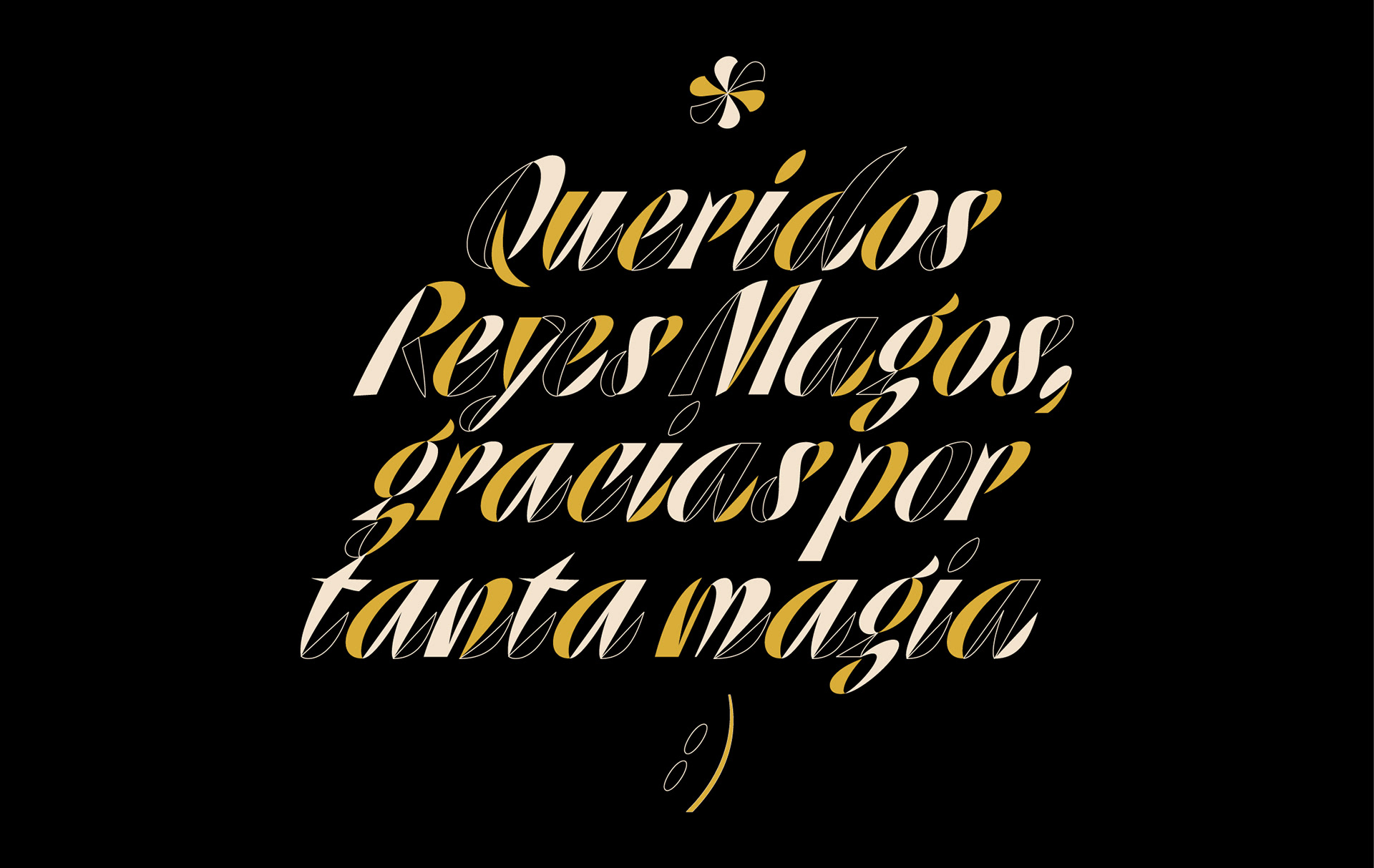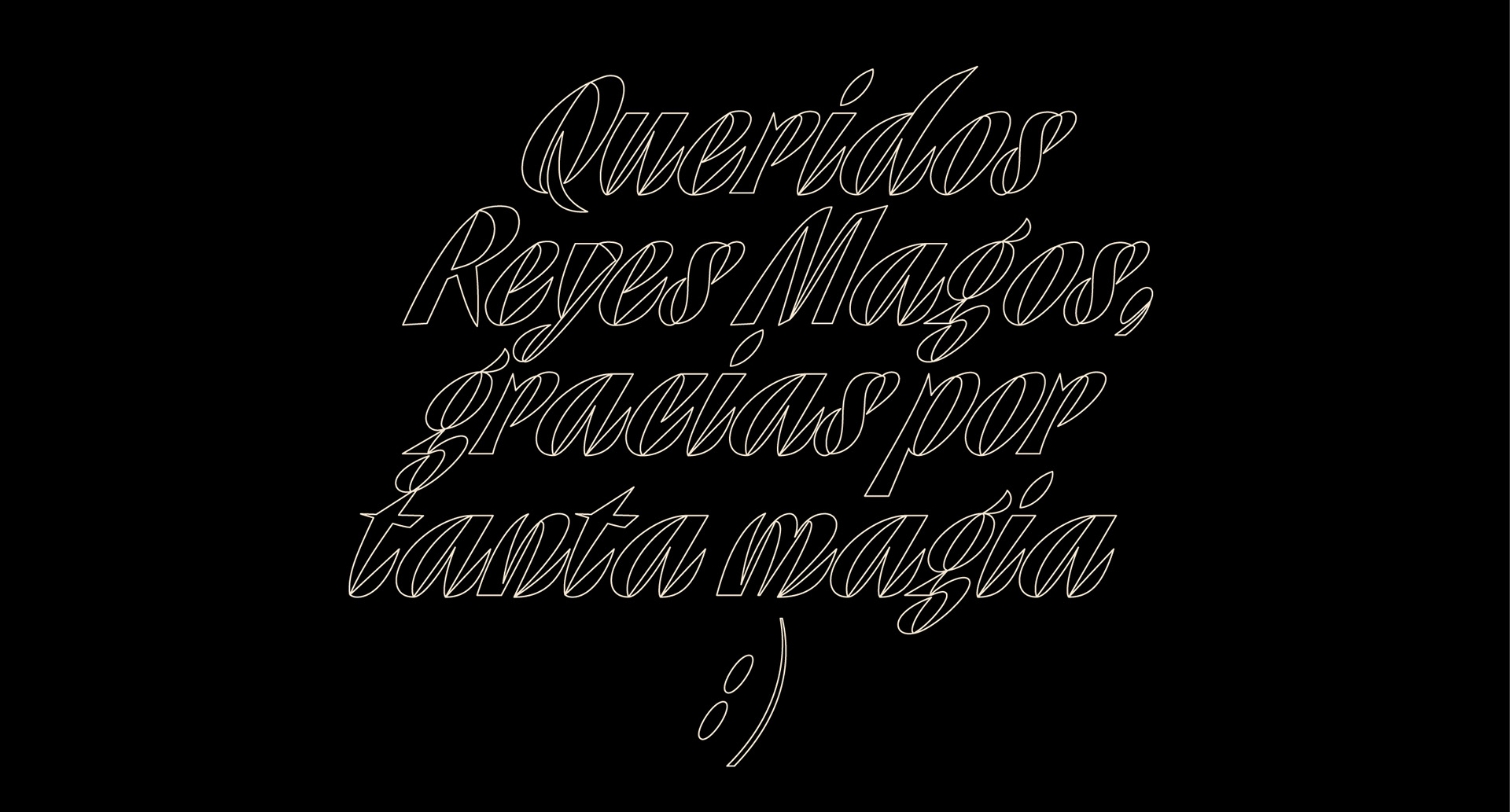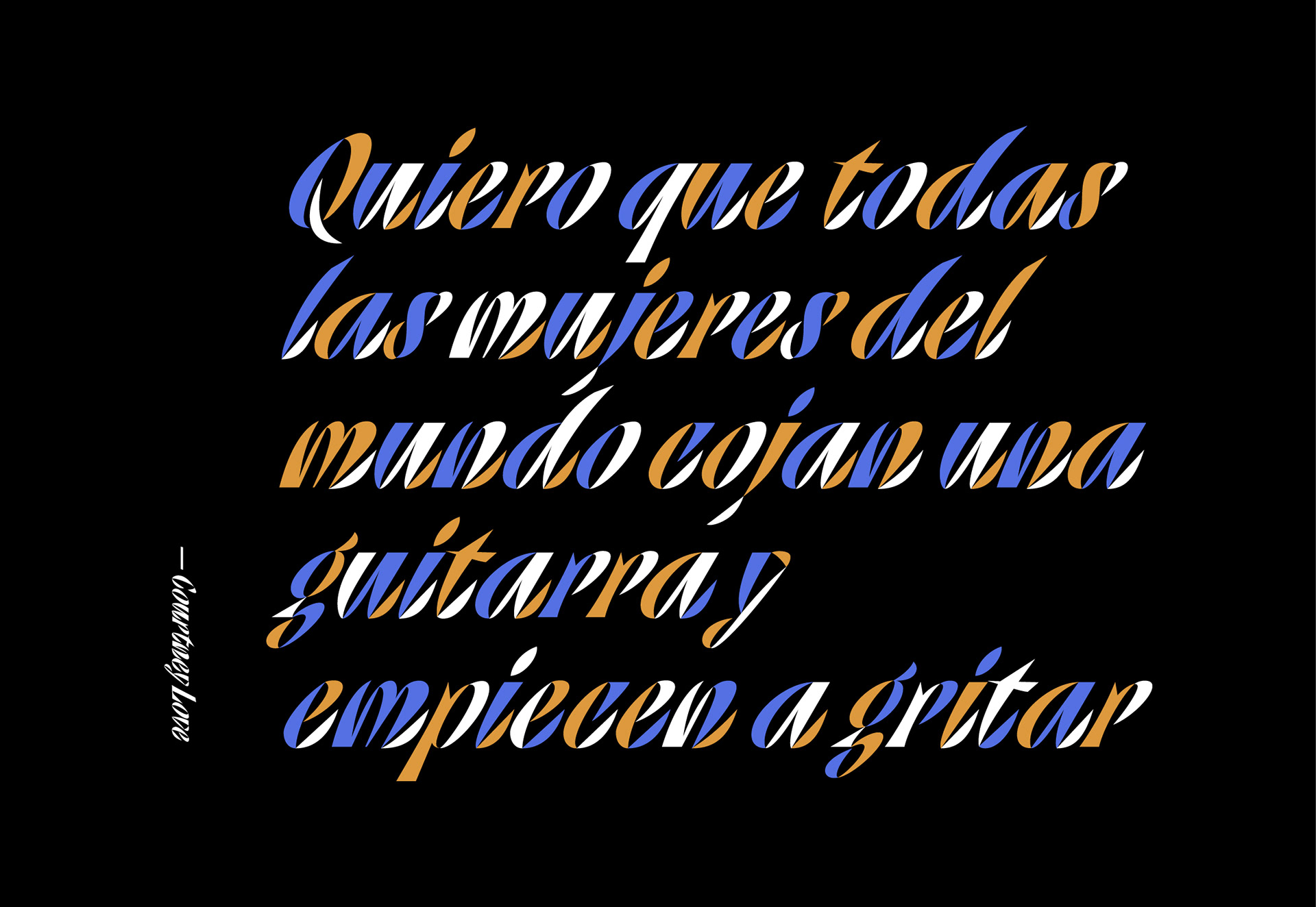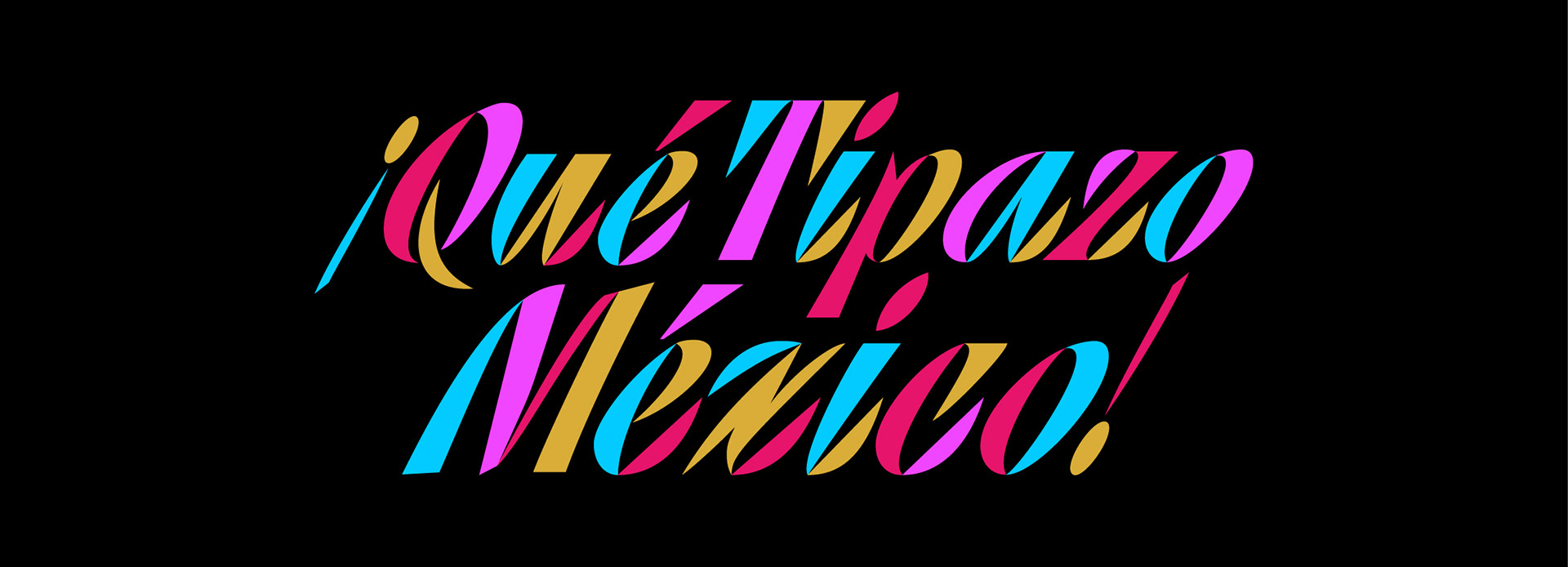
APILOA
It is a display-style font designed to be used in headlines and short phrases. Its main feature is to be applied as letters built by pieces. It has hard and pointed strokes that are combined with smooth curves that give it an intriguing personality. Designed during the pandemic, it expresses a dramatic cry for survival.